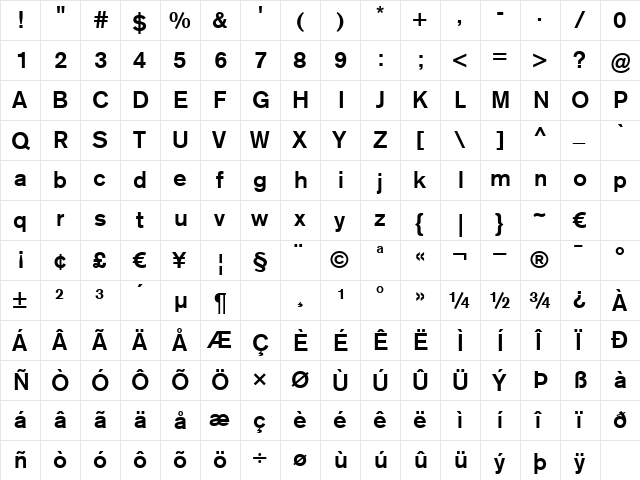
VolvoSansLight Bold
Design Context for VolvoSansLight Typeface
VolvoSansLight offers clean, dependable letterforms without strong stylistic allegiance, making it a practical choice for designers who need flexibility. The heavy weight commands attention and anchors typographic hierarchies.